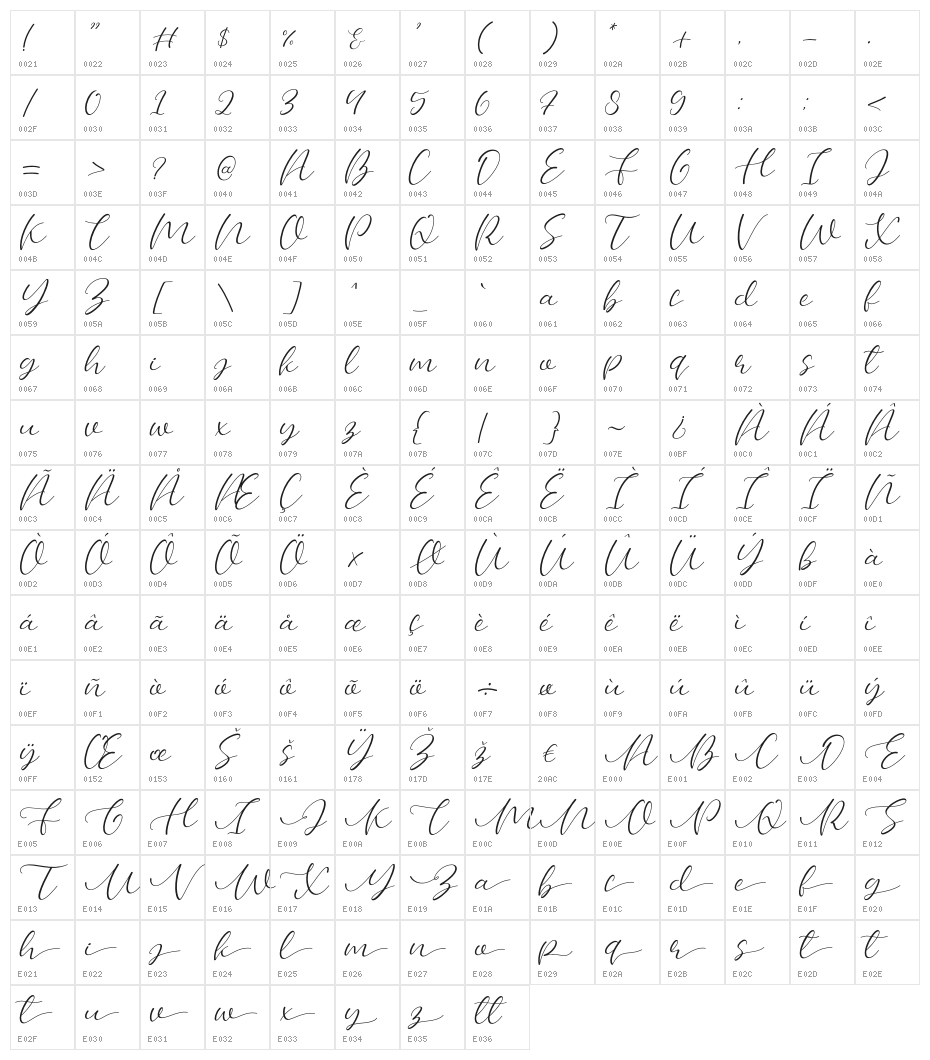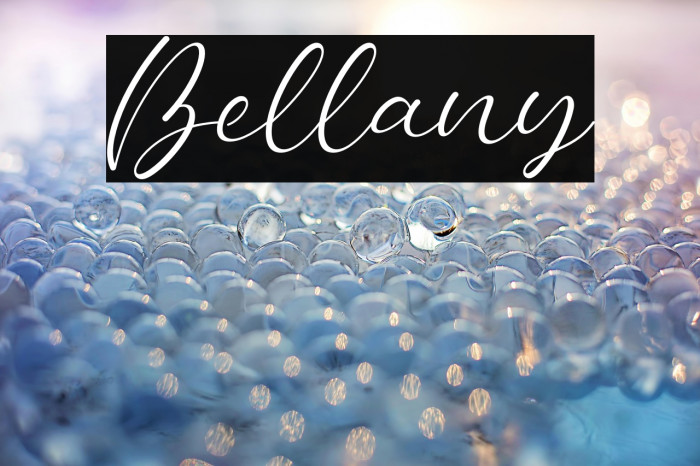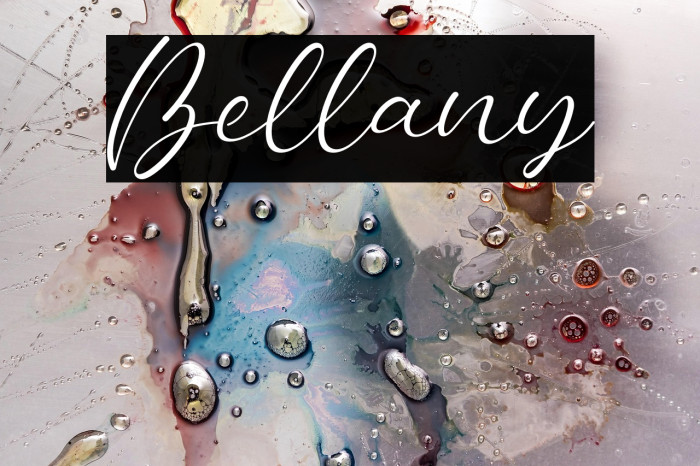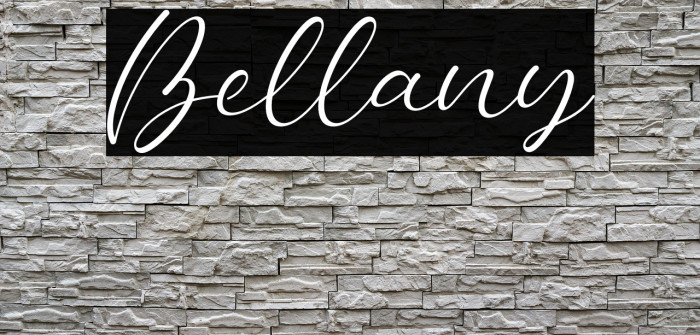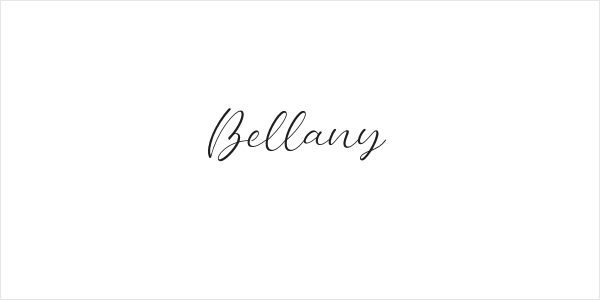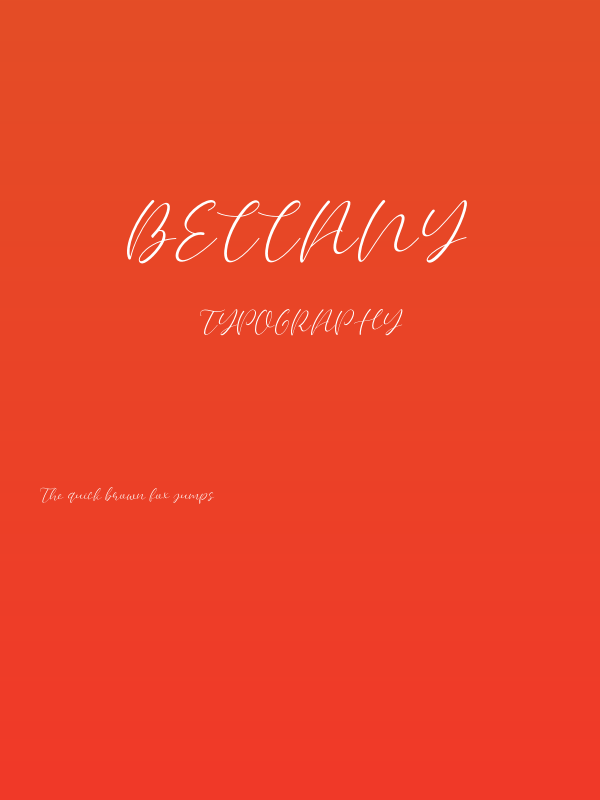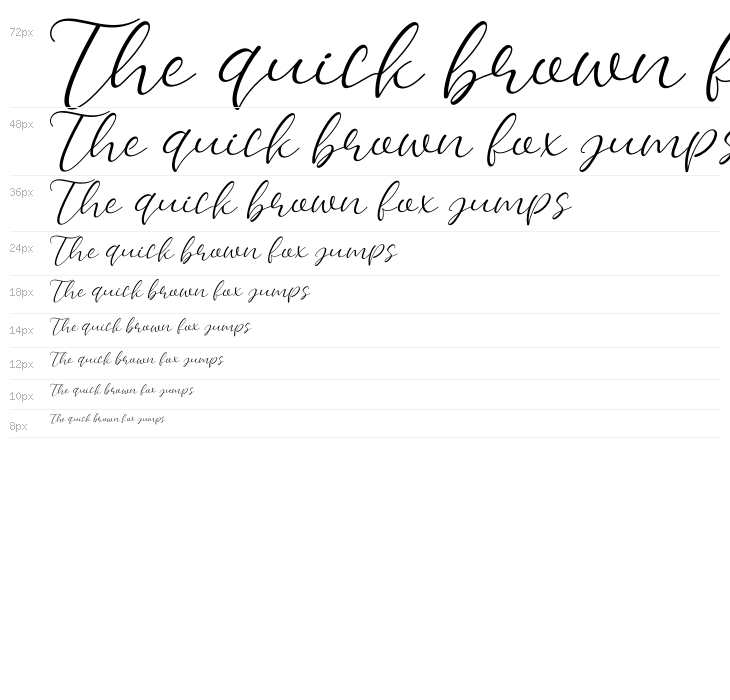
Bellany Font
Bellany Description
This elegant script font features flowing, interconnected letters that exude a sense of sophistication and grace. The uppercase letters are slightly larger with sweeping curves, while the lowercase letters maintain a consistent flow, enhancing readability. The numerals are stylishly crafted, matching the overall cursive theme. Special characters are thoughtfully designed, adding a touch of flair to punctuation marks. This font is perfect for projects that require a personal, handwritten touch, such as invitations, greeting cards, and branding materials.
| Overall Style | Elegant |
| Use Case | Logos, Invitations, Greeting Cards |
| Proposed Projects | Ideal for wedding invitations, personal branding, greeting cards, and elegant stationery. |